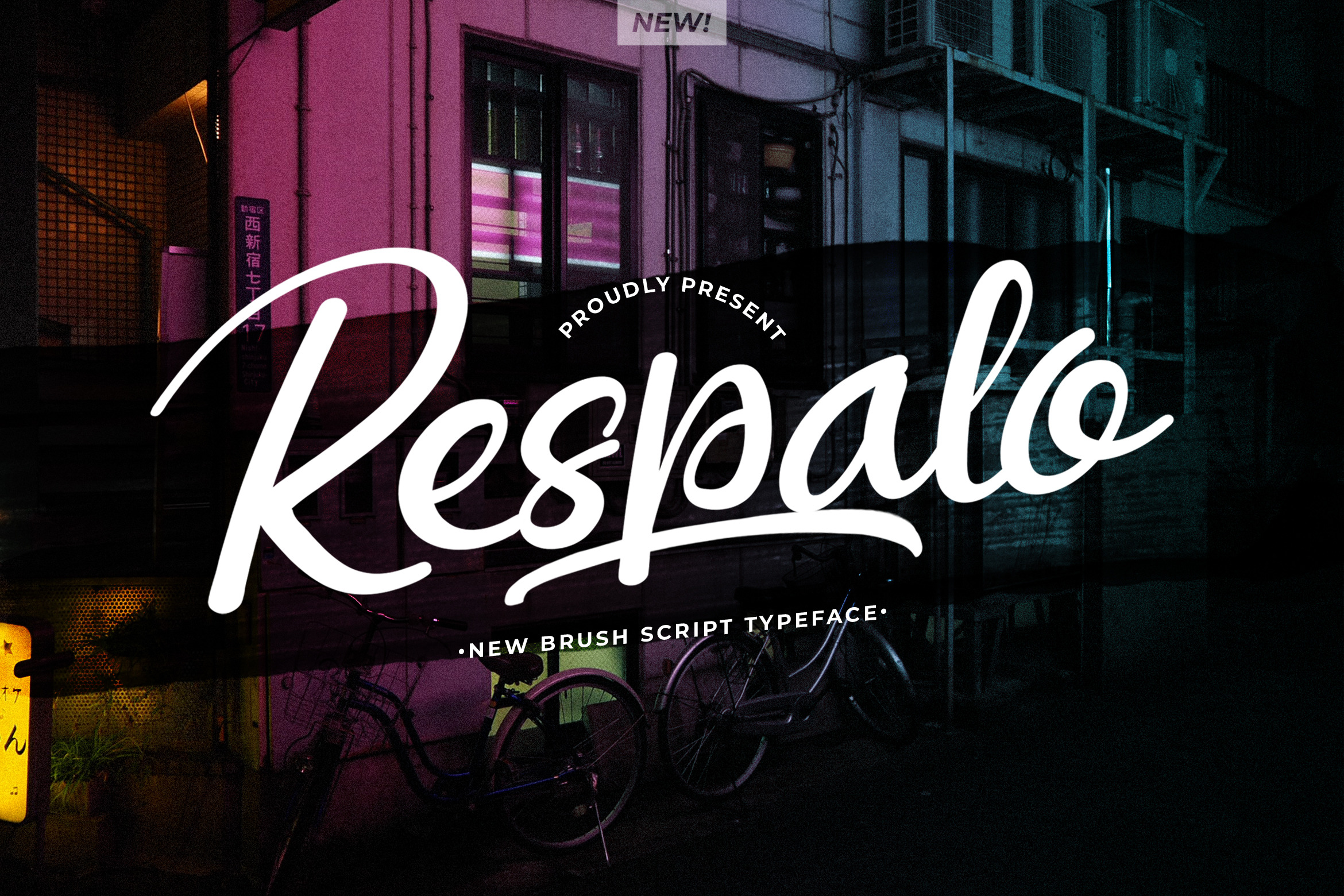
Respalo Modern Script Font
Introducing, Respalo a Stylish Modern Calligraphy Font with Casual Style!!
Respalo is a Stylish Modern Calligraphy Font with Casual Style for your Design that is absolutely great for your next creative project such as logos, printed quotes, invitations, cards, product packaging, headers, Logotype, Letterhead, Poster, Apparel Design, Label, and etc.
This Versatile Font includes also support a Multilingual Characters. Making this Font a Swiss Army knife in your Font Library. It's extremely fun to use as each word can be transformed to your liking.
- Uppercase & Lowercase letters